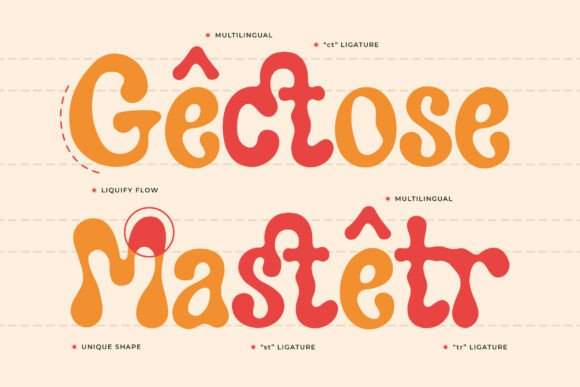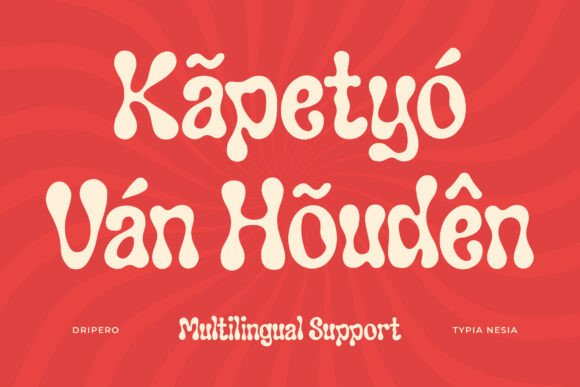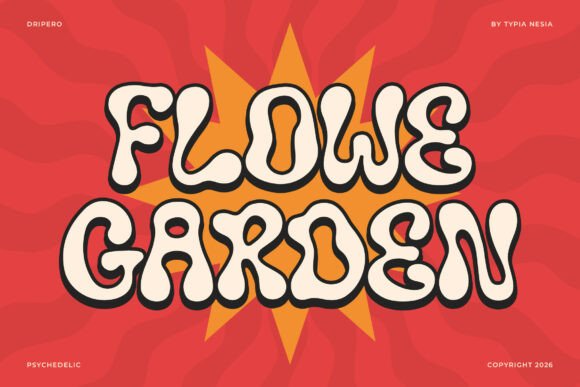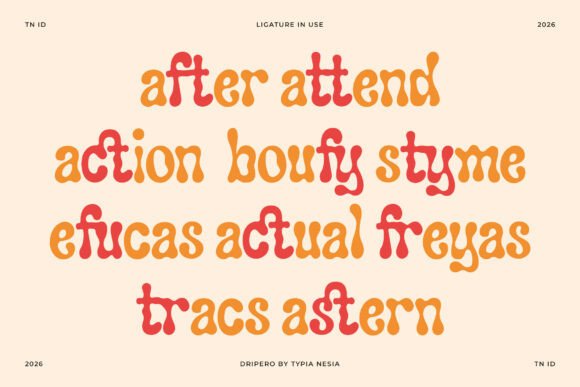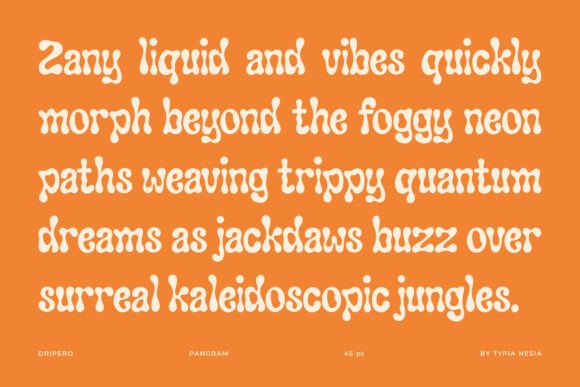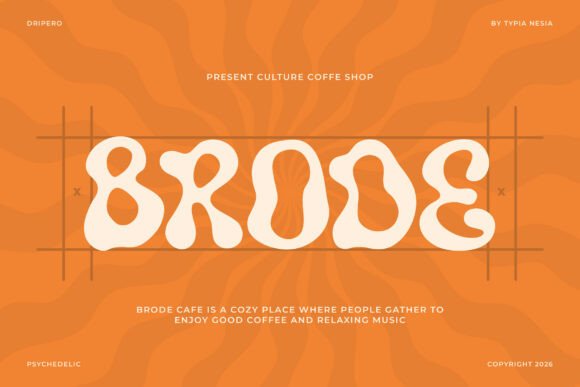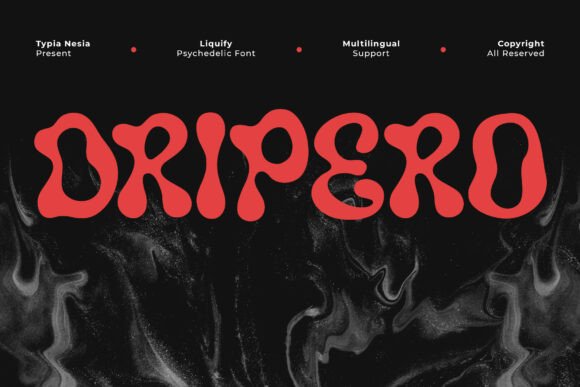
Dripero Font: Unleash the Groovy Vibes of the 70s with this Psychedelic Liquify Retro Font
Are you ready to add a dash of psychedelic flair to your designs? Look no further than Dripero, a modern retro font that embodies the funky, bold, and artistic expression of the 1970s. Inspired by the era’s iconic aesthetics, fluid motion, and melting curves, Dripero is the perfect typeface for designers and crafters seeking to create eye-catching visuals that scream groovy.
The Inspiration Behind Dripero
Dripero’s design is rooted in the psychedelic art movement of the 1970s, characterized by vibrant colors, organic shapes, and a sense of fluid motion. This font’s melting, liquid-like curves and bold artistic expression evoke the era’s iconic posters, album covers, and fashion designs. With Dripero, you can infuse your designs with the same carefree, artistic spirit that defined the decade.
Key Features of Dripero Font
- Psychedelic Liquify Style: Dripero’s unique design combines melting curves and organic shapes to create a truly one-of-a-kind typeface.
- Groovy 70s Aesthetics: Inspired by the era’s iconic visuals, Dripero embodies the funky, bold, and artistic expression of the 1970s.
- Dynamic Flow: Dripero’s design creates a strong sense of movement, making every word feel alive and expressive.
- Versatile: Perfect for logo design, music posters, festival artwork, branding, café visuals, K-pop graphics, retro-themed packaging, and more.
Use Cases for Dripero Font
Dripero’s versatility makes it an excellent choice for a wide range of design projects. Here are some ideas to get you started:
- Logo Design: Create a bold, eye-catching logo that showcases your brand’s personality with Dripero’s unique, liquify style.
- Music Posters: Add a touch of psychedelic flair to your music posters and flyers with Dripero’s groovy, retro aesthetic.
- Festival Artwork: Make your festival artwork stand out with Dripero’s dynamic, expressive design.
- Branding: Infuse your brand’s visual identity with a dash of 70s nostalgia and artistic expression.
- Café Visuals: Create eye-catching menu boards, signage, and promotional materials with Dripero’s funky, retro style.
- K-pop Graphics: Add a touch of psychedelic flair to your K-pop graphics, album covers, and music videos.
- Retro-Themed Packaging: Create bold, eye-catching packaging that screams retro with Dripero’s liquify style.
Why Choose Dripero Font?
With Dripero, you can:
- Add a Unique Touch: Stand out from the crowd with Dripero’s one-of-a-kind, psychedelic liquify style.
- Tap into the 70s Vibe: Infuse your designs with the carefree, artistic spirit of the 1970s.
Dripero Font is a game-changer for designers and crafters seeking to add a dash of psychedelic flair to their projects. With its unique liquify style, groovy 70s aesthetics, and dynamic flow, Dripero is the perfect typeface for creating eye-catching visuals that scream retro. So why wait? Unleash the groovy vibes of the 70s with Dripero and take your designs to the next level!
Add groovy liquid vibes to your design with Dripero. Get ready to make a statement with this bold, expressive, and truly one-of-a-kind font!